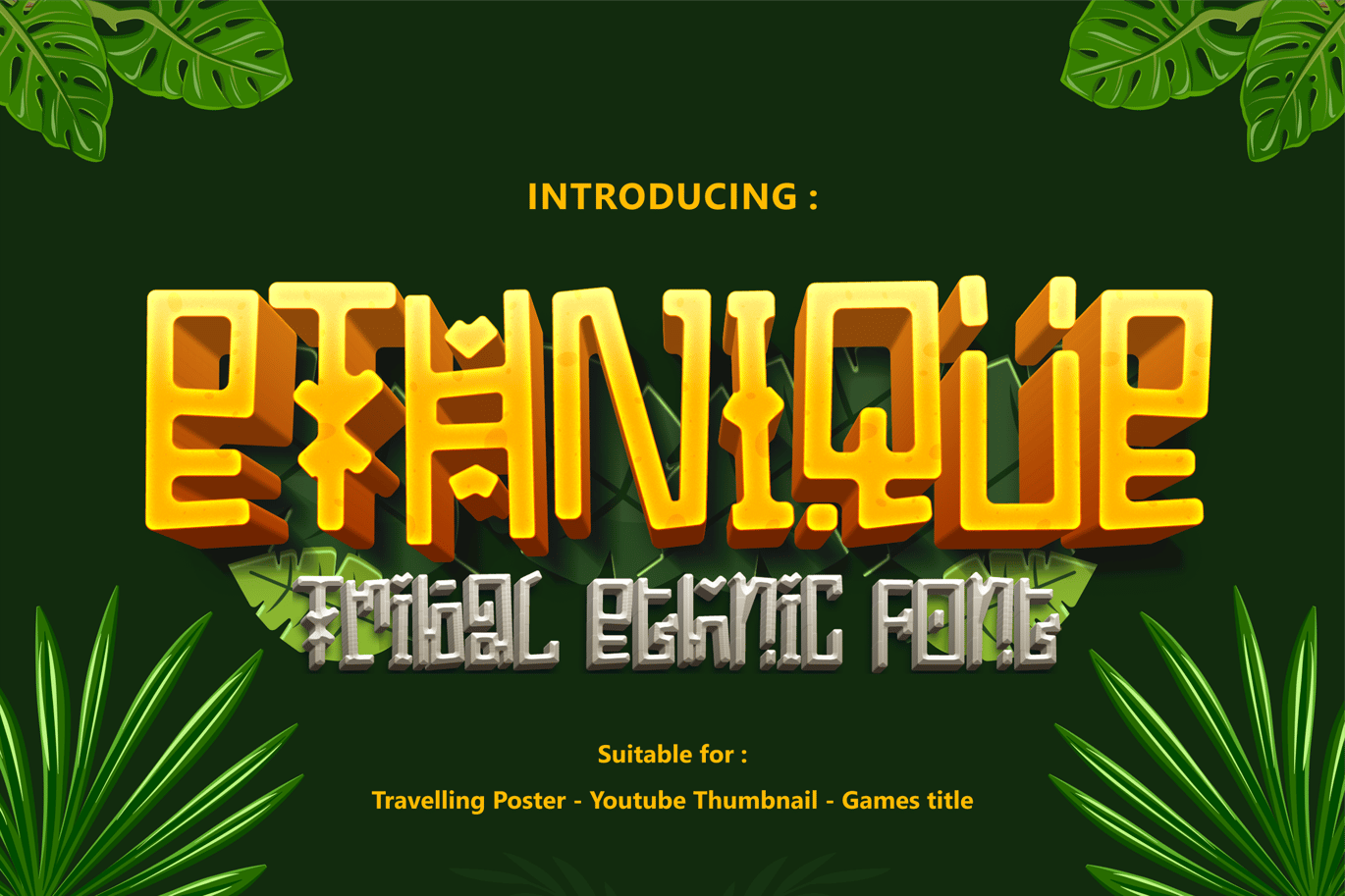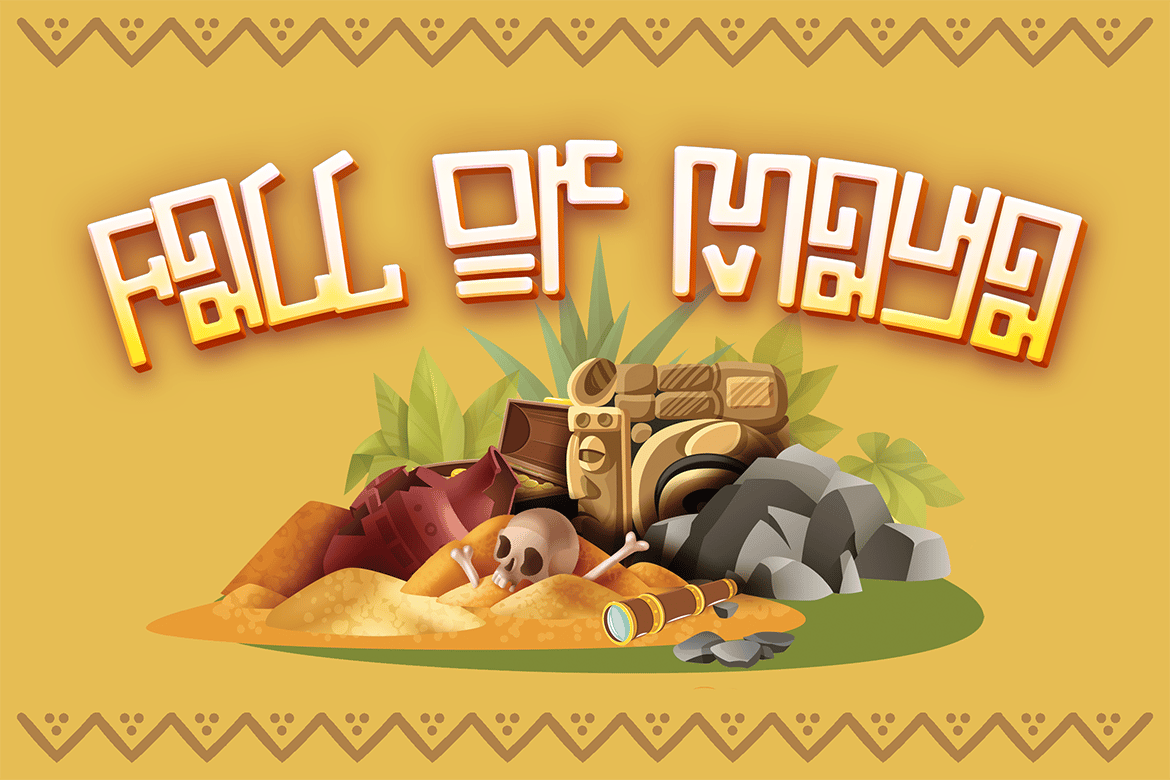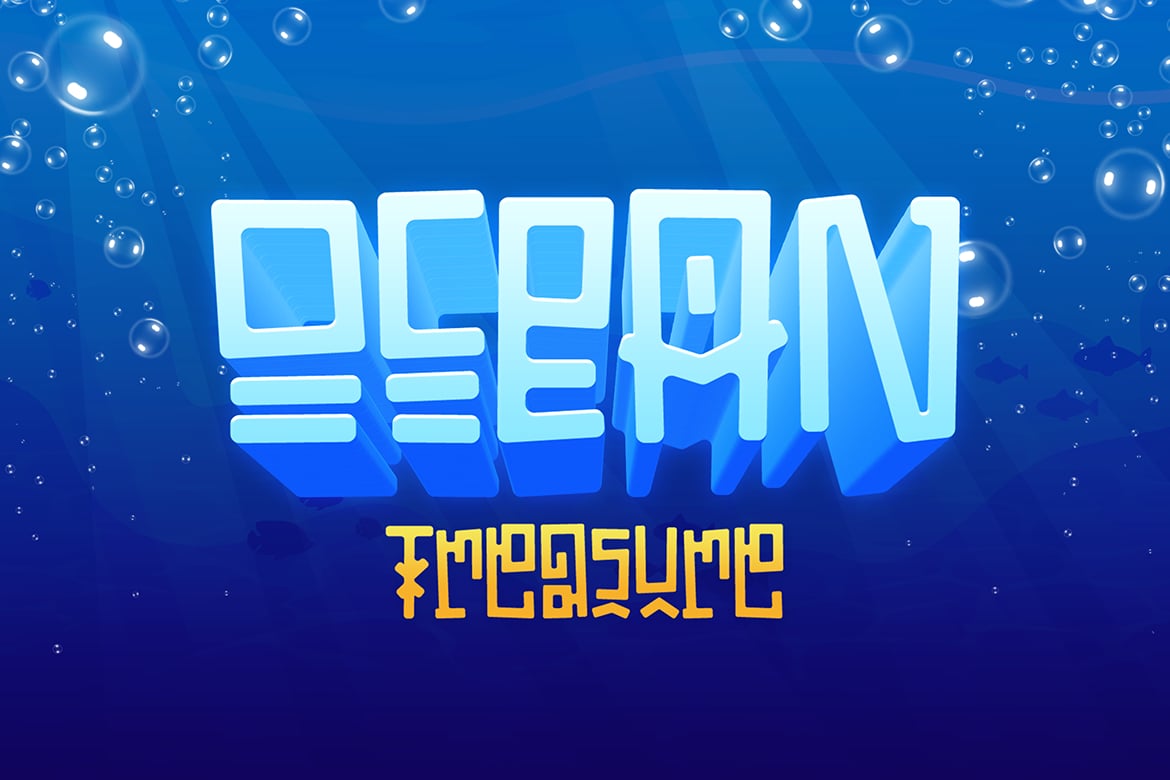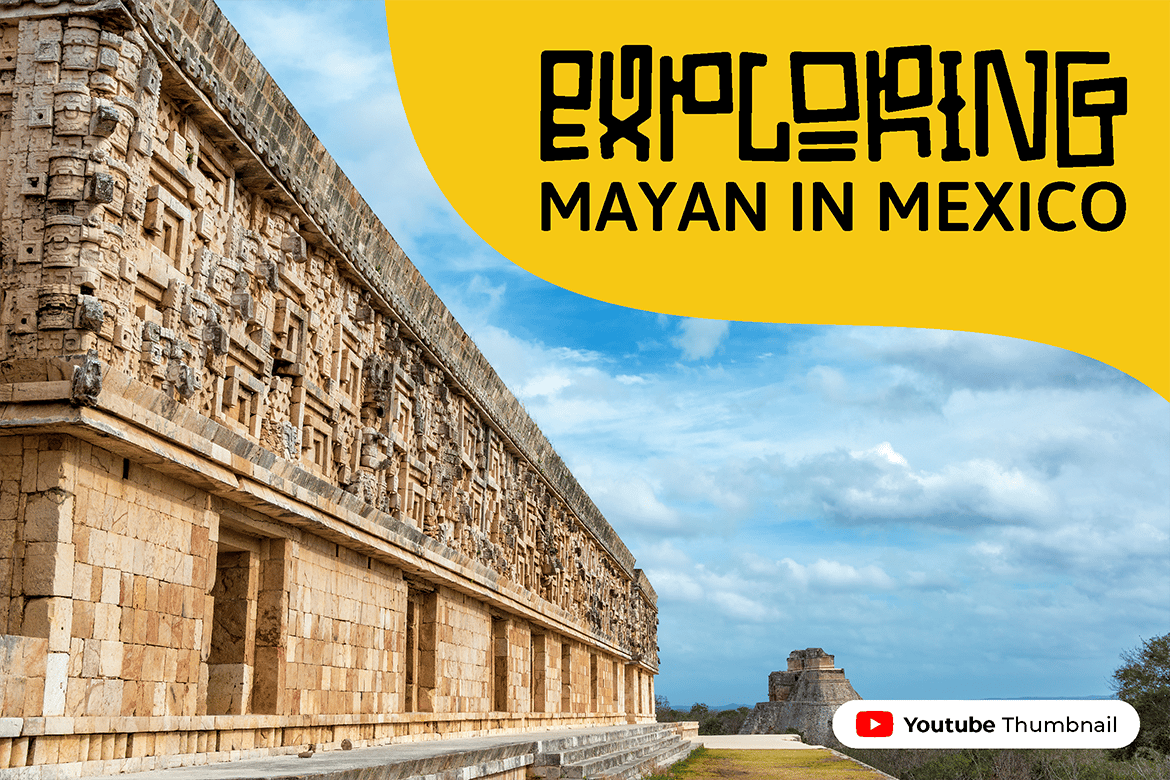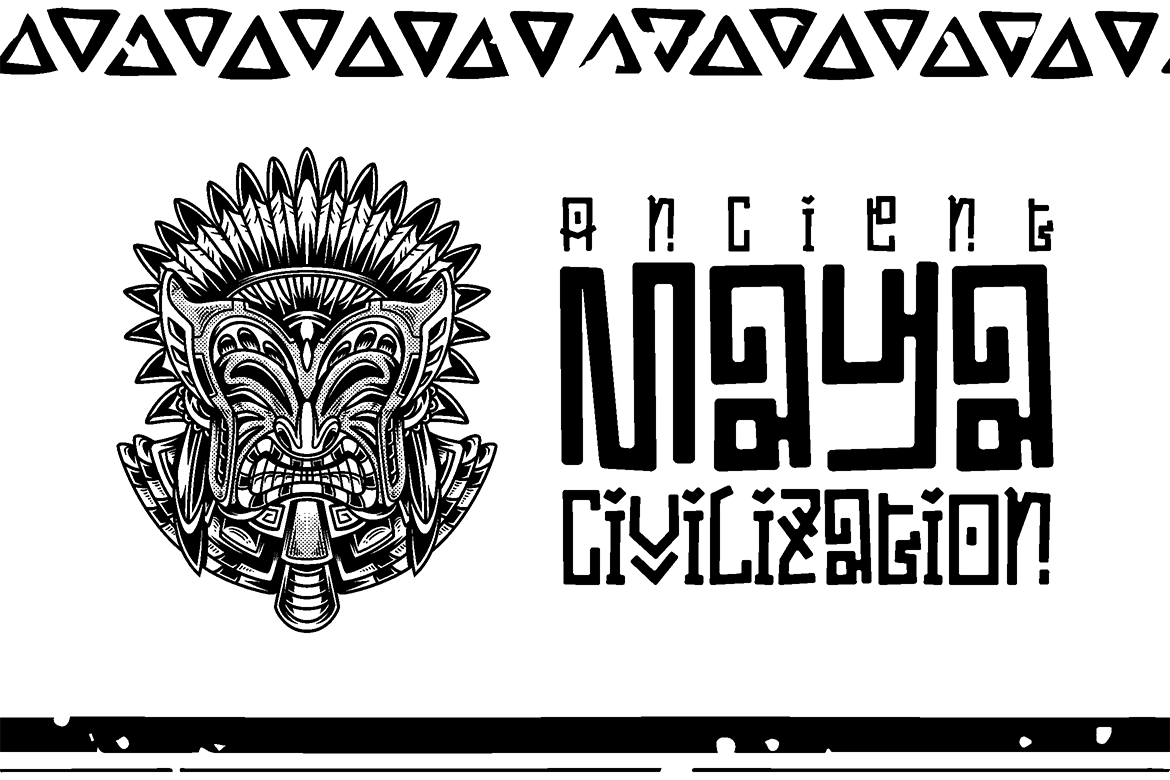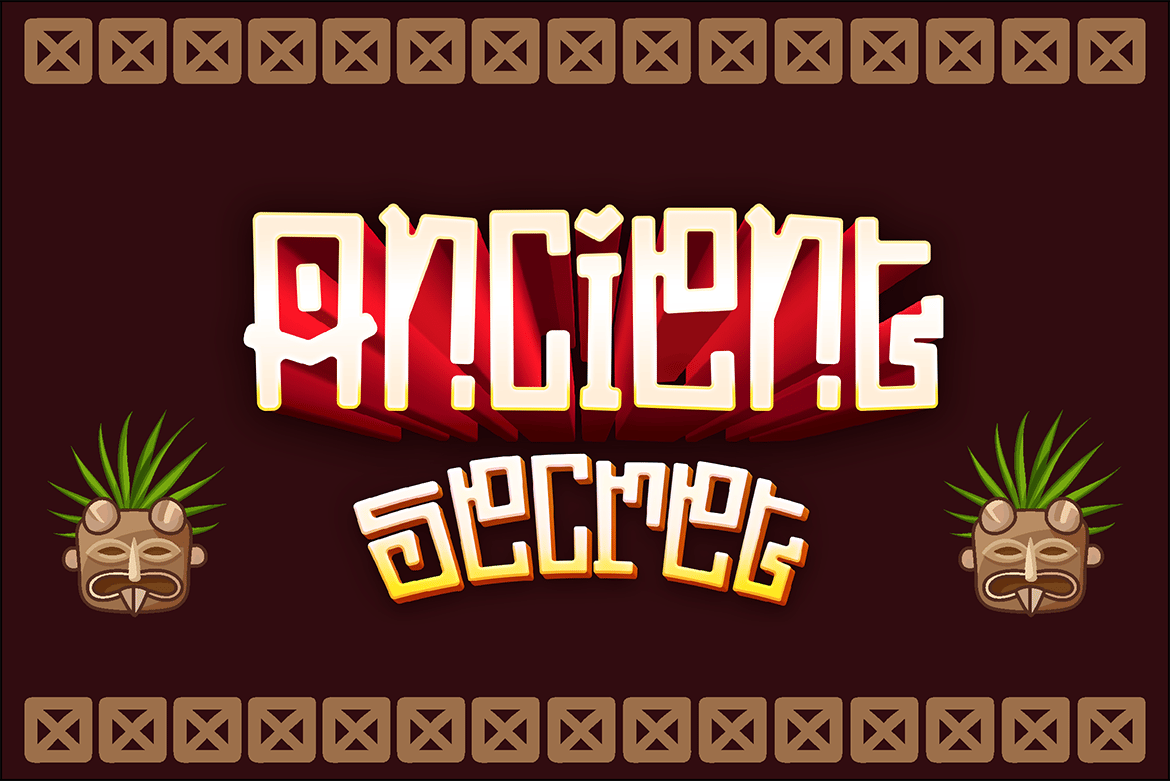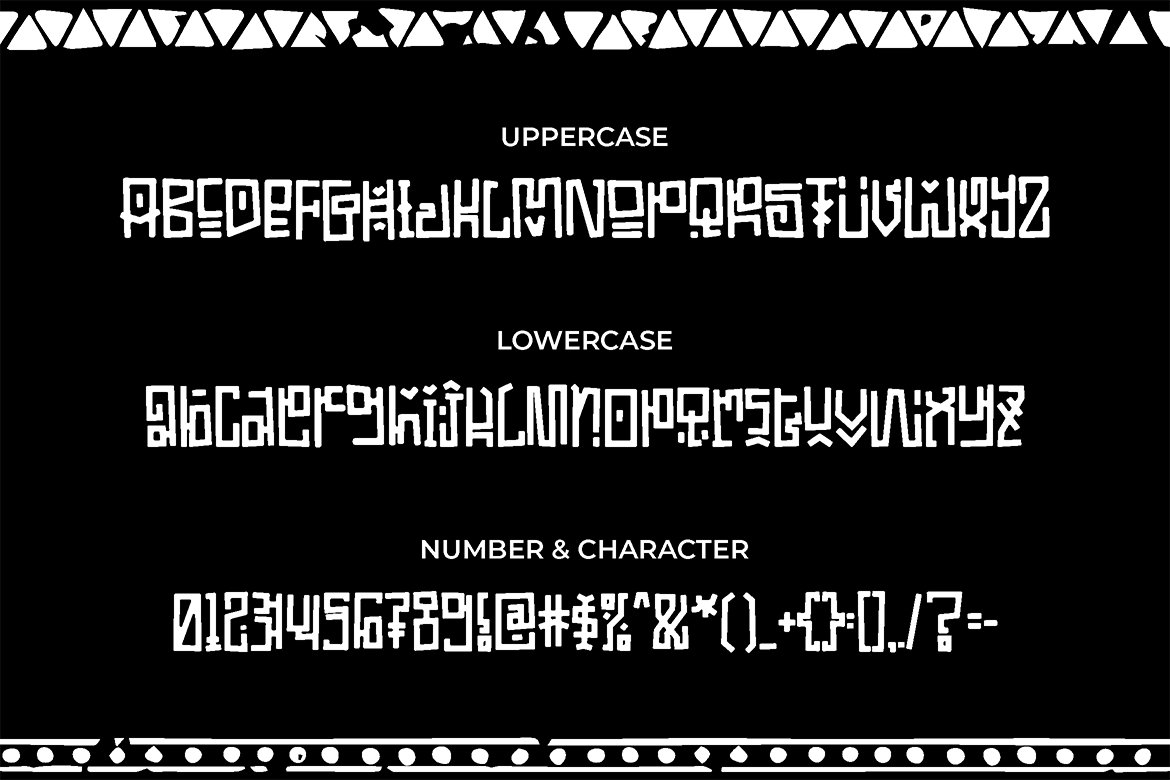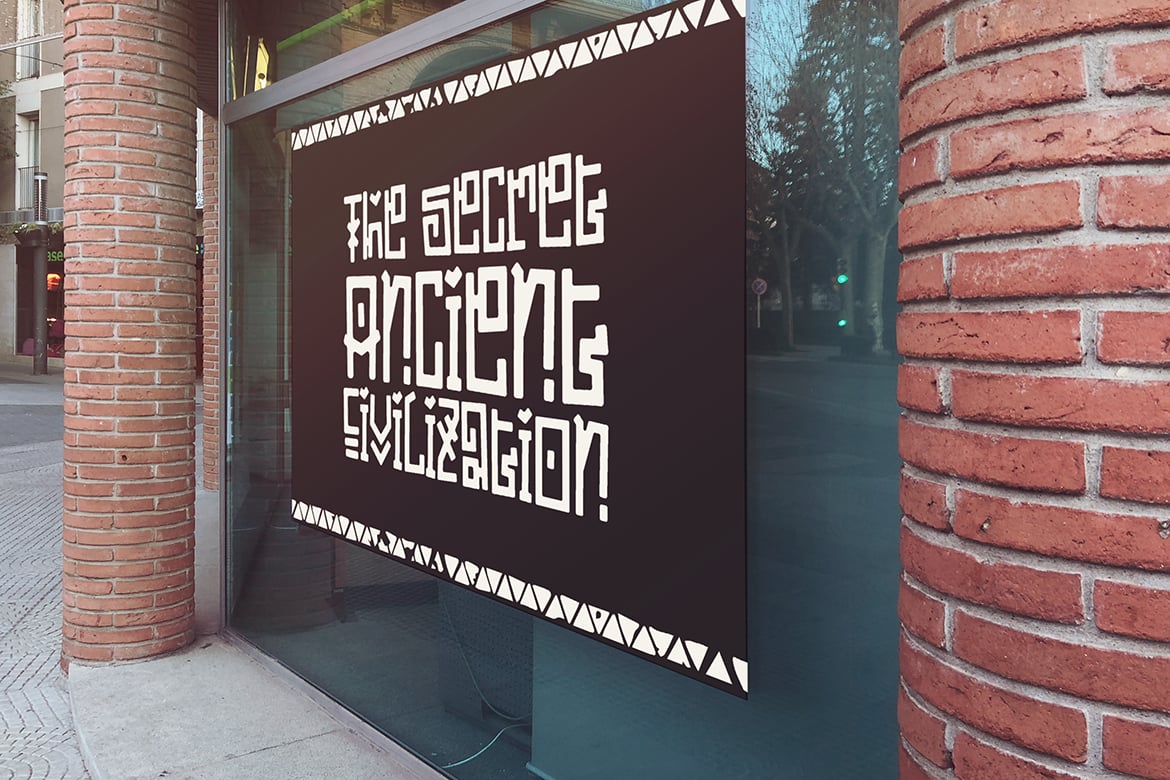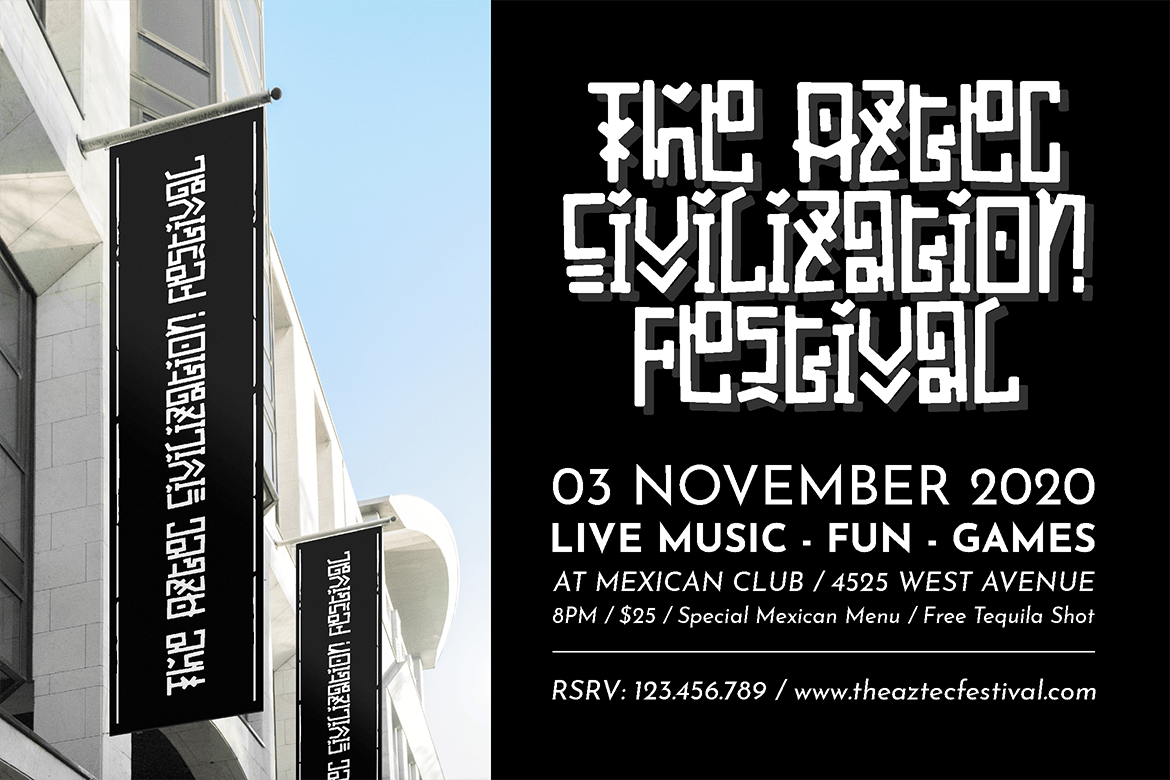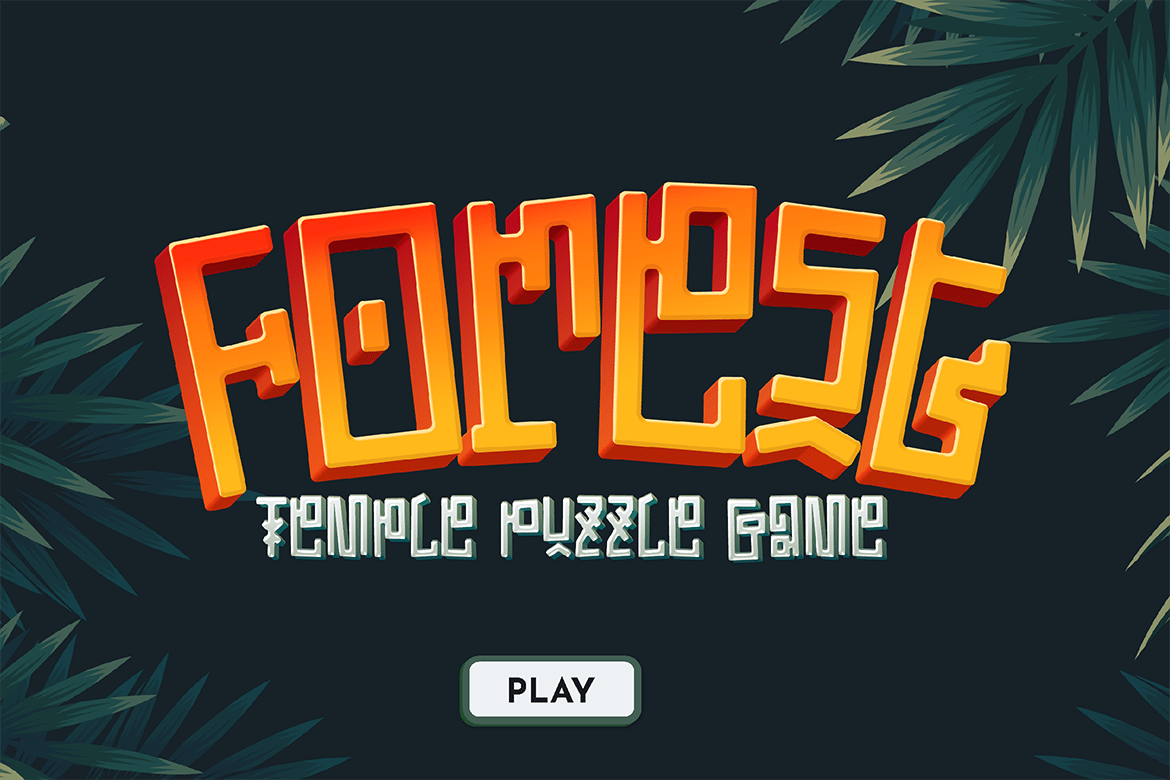
ETHNIQUE – Gaming font
ETHNIQUE – Tribal and Ethnic gaming font
Ethnique is taking shape from Maya and Aztec tribal writing and graphic in mind.
With such quirky shapes and lines, it emphasize the ancient feel and tribal vibe of the game you have.
Suit perfectly for Online Games, poster, movie title, fast food menu, magazine, youtube covers, youtube thumbnails, social media page covers, adventure flyer and so on…